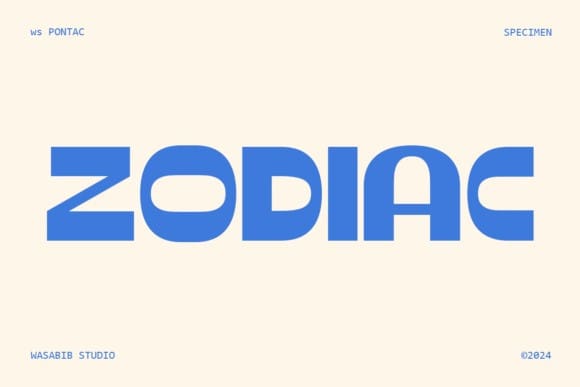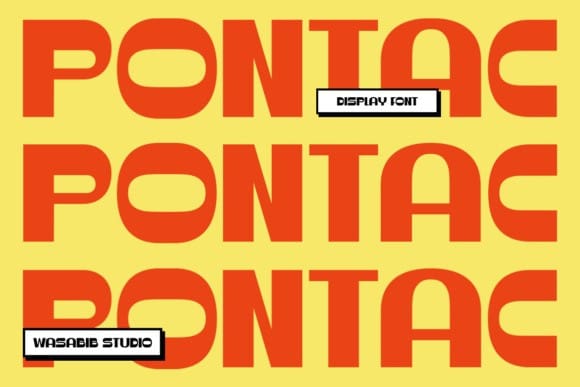
Pontac Font
Pontac Font – its simplicity and boldness make it ideal for a variety of display purposes. It can be used effectively in headlines, logos, and branding materials where impact and clarity are essential. Its straightforwardness ensures legibility even at larger sizes, making it suitable for signage, banners, and other visual communication needs.
Overall, Pontac Font is a display font that embodies strength, simplicity, and courage. Its bold letterforms captivate attention, while its simplicity exudes clarity and focus. Whether you need to convey a strong and confident message or add a touch of boldness to your design, Pontac is a dependable choice.